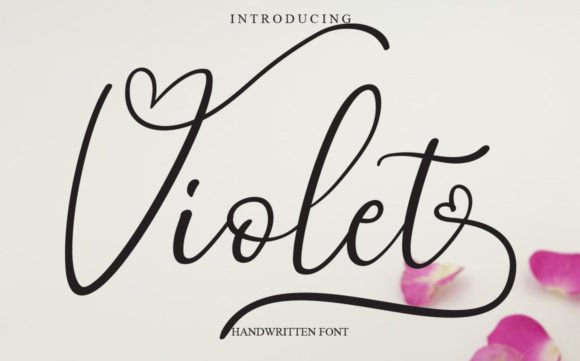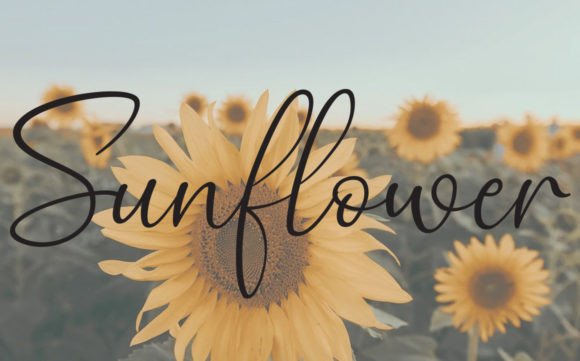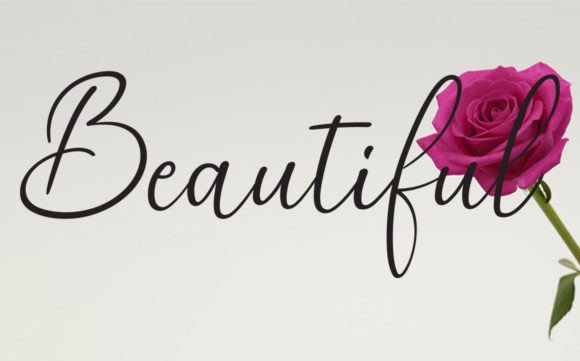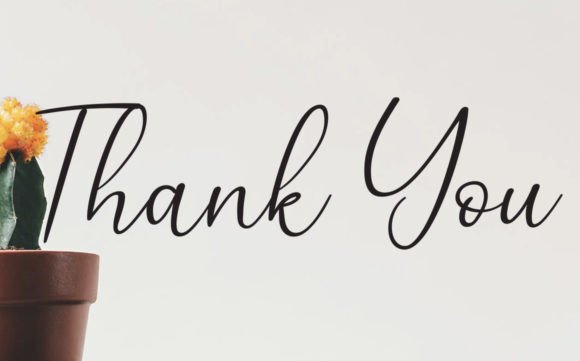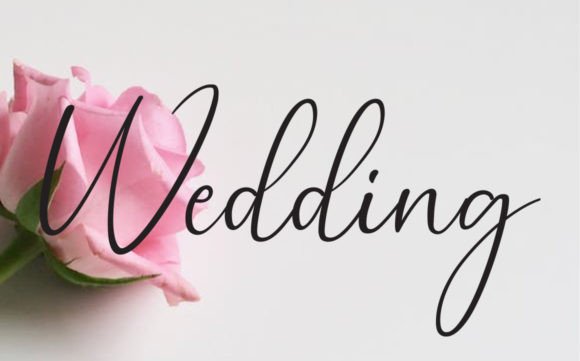
Violet Font
What Is Violet Font?
Violet Font is a sweet and romantic handwritten script designed to bring elegance and warmth to any creative project. Each letter features delicate curves and a graceful flow that feels both timeless and personal. Whether you’re crafting something sophisticated, casual, or heartfelt, Violet delivers a polished look that instantly elevates your design.
Its refined style makes it a must-have for designers who love beautiful, high-quality typography.
Violet is incredibly versatile and shines across many applications. For example, it’s perfect for wedding invitations, save-the-date cards, and elegant event signage. The romantic handwritten style sets a heartfelt, memorable tone that guests will adore.
Wall art and inspirational quotes look beautiful with Violet’s soft, flowing shapes. Your decor will feel cozy and uplifting in any space.
Logos and branding projects stand out with Violet’s unique character. From artisan brands and boutiques to florists and creative businesses, this font helps build a charming, memorable identity.
Social media graphics, blog headers, and website banners instantly look more polished and inviting. Violet’s friendly style makes your content feel approachable and engaging.
Even product packaging, labels, and stationery gain sophistication and warmth with Violet’s delicate letterforms.
Why Should You Choose Violet Font?
One of Violet’s strongest qualities is its readability. Even with its graceful script style, every letter remains clear and legible in any size. From tiny tags to large headlines, your text will always look professional and easy to read.
It pairs beautifully with clean serif or sans-serif fonts, giving you endless options to build balanced, modern layouts.
Designers love that Violet looks polished out of the box, saving time and delivering consistent, beautiful results.
Violet Font adds romance, authenticity, and elegance to every project. Its smooth, flowing strokes create an emotional connection that makes your work feel thoughtful and engaging.
Even minimalist layouts gain charm and character when you use Violet. Whether you’re creating a wedding suite, a brand logo, or a social media post, this font elevates your visuals effortlessly.
Using a premium handwritten script also shows your commitment to high-quality, thoughtful design. Clients and customers will appreciate this attention to detail, helping you build trust and stand apart.
Violet Font is more than just a beautiful script—it’s a versatile design asset that helps you communicate ideas with clarity, warmth, and style. From weddings and branding to packaging and digital content, this font adapts seamlessly to any project and leaves a lasting impression.